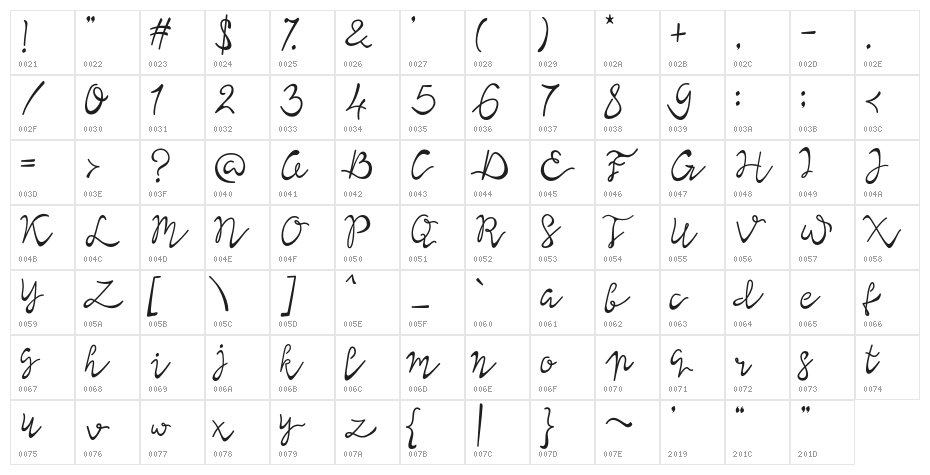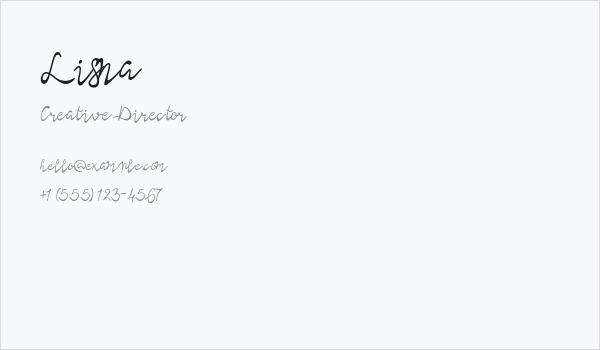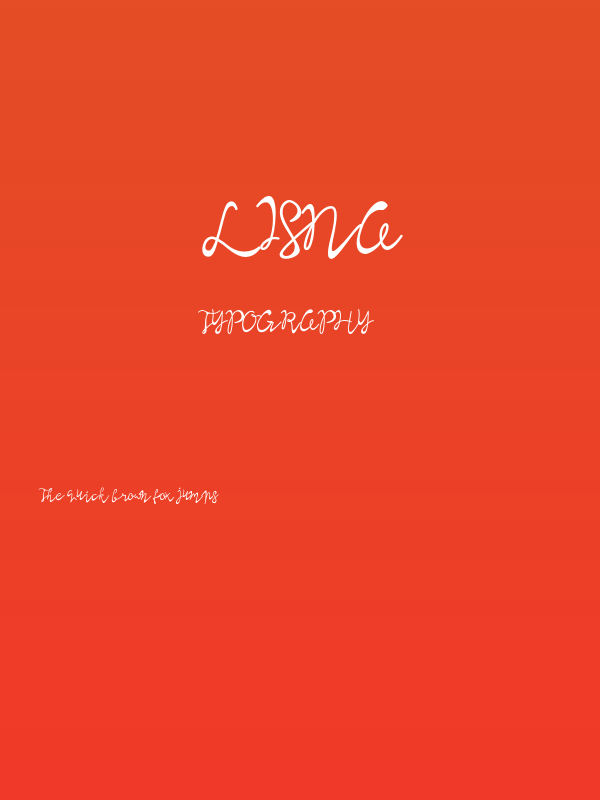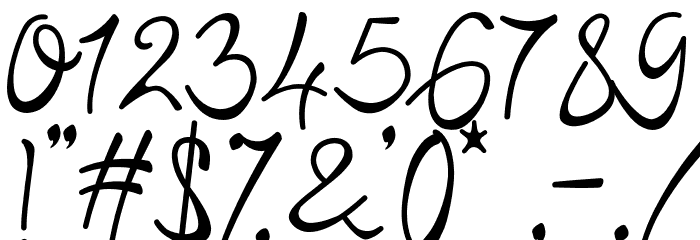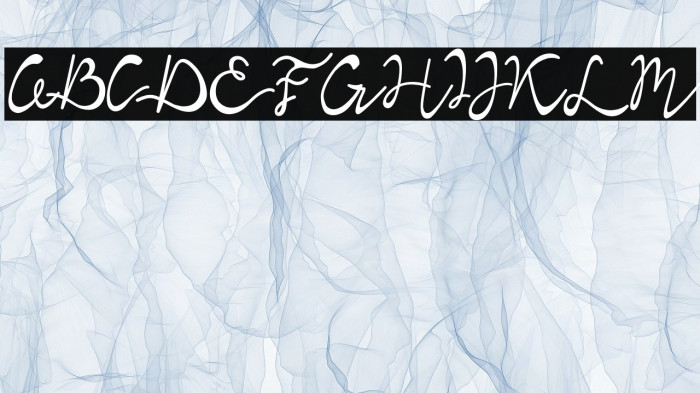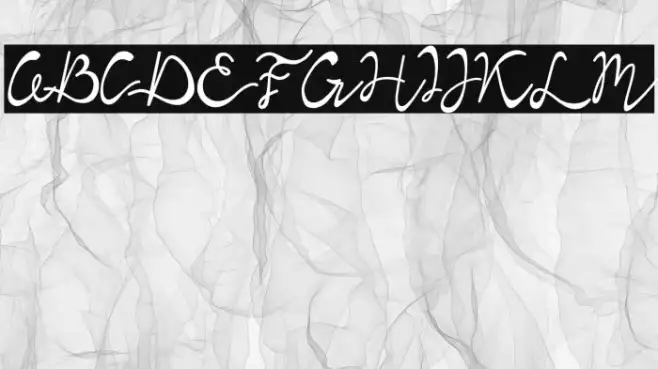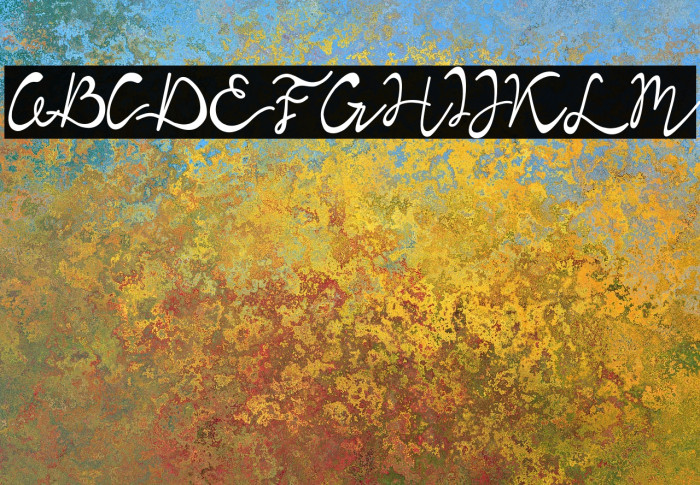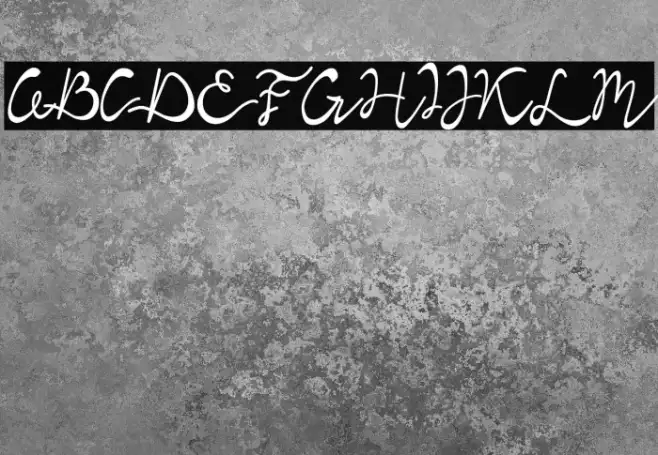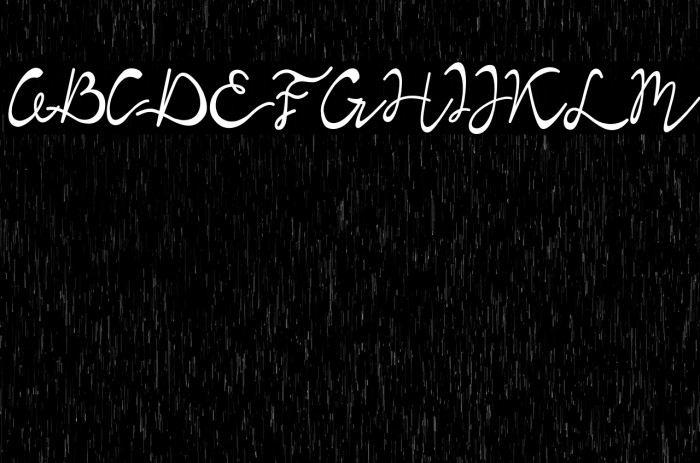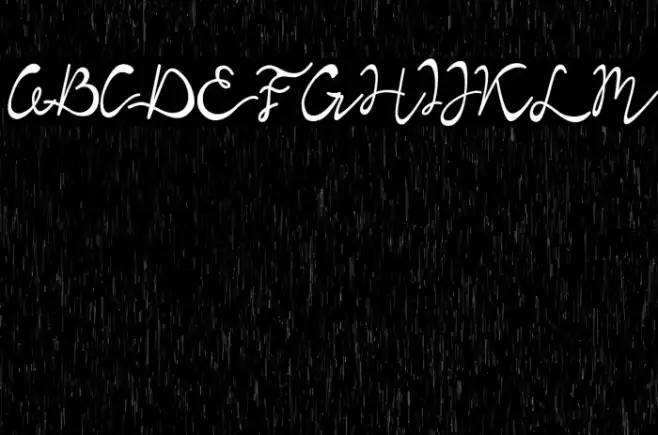
Lisna Font
Lisna Description
This font features a flowing, cursive style that mimics elegant handwriting. The letters are interconnected with smooth, sweeping strokes, giving it a fluid and dynamic appearance. The uppercase letters are slightly more ornate, with loops and curves that add a touch of sophistication. The lowercase letters maintain a consistent style, with gentle curves and a slight slant that enhances readability. The numerals and special characters are designed to match the overall aesthetic, with a playful yet refined look. This font is perfect for projects that require a personal, handwritten touch, such as invitations, greeting cards, or branding materials.
| Use Case | Headlines, Invitations, Decorative text |
| Proposed Projects | Ideal for wedding invitations, greeting cards, personal branding, and decorative signage. |